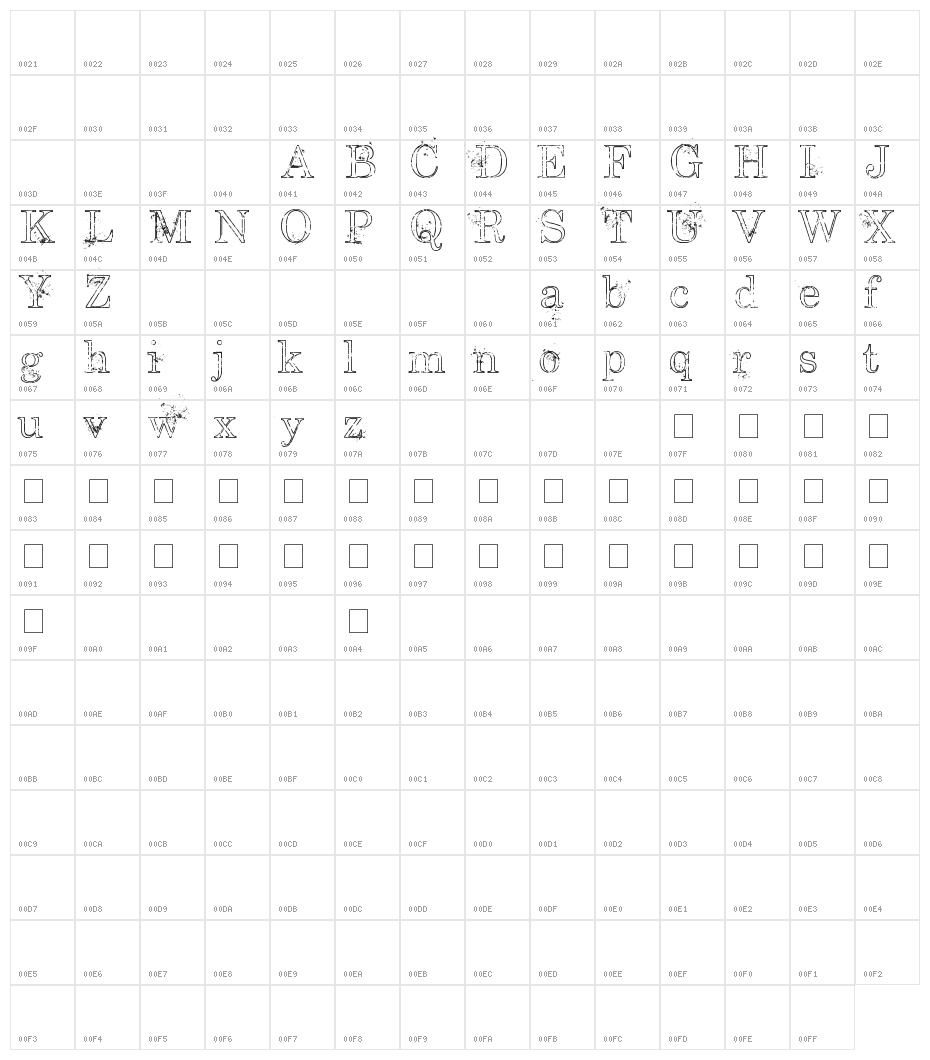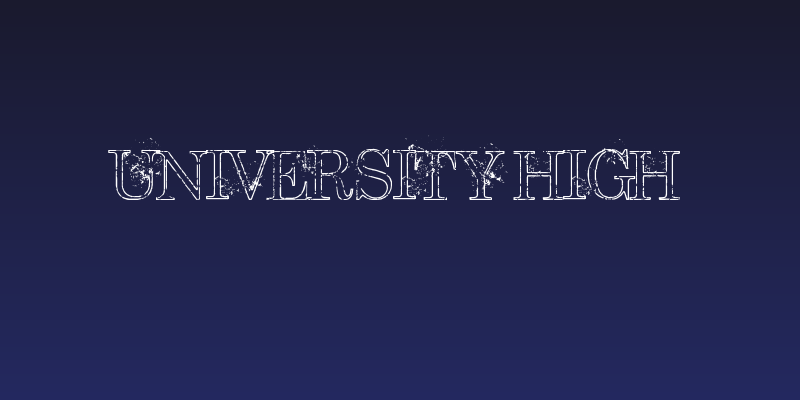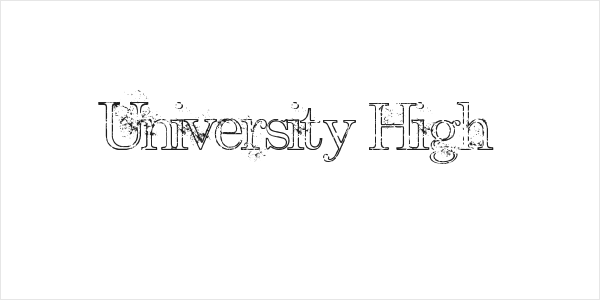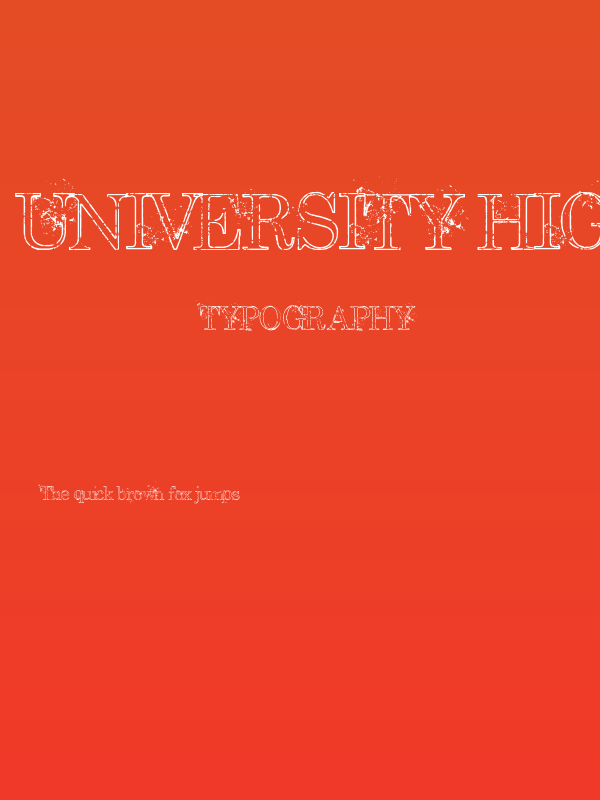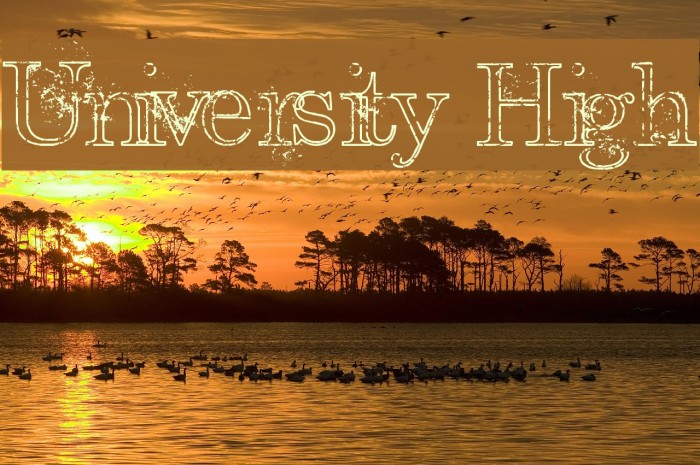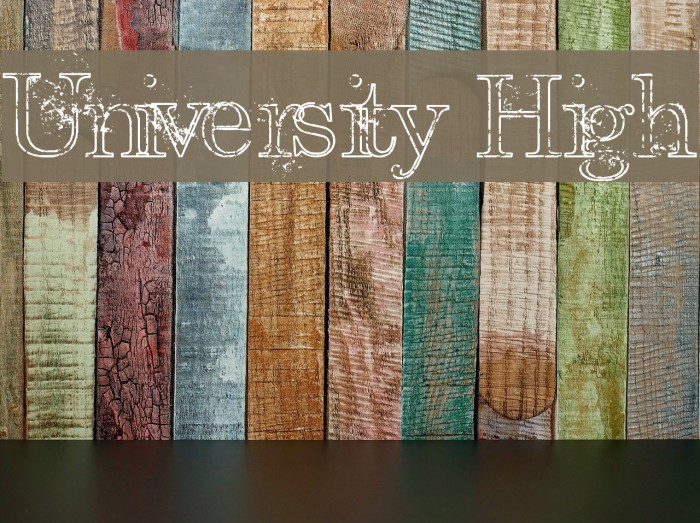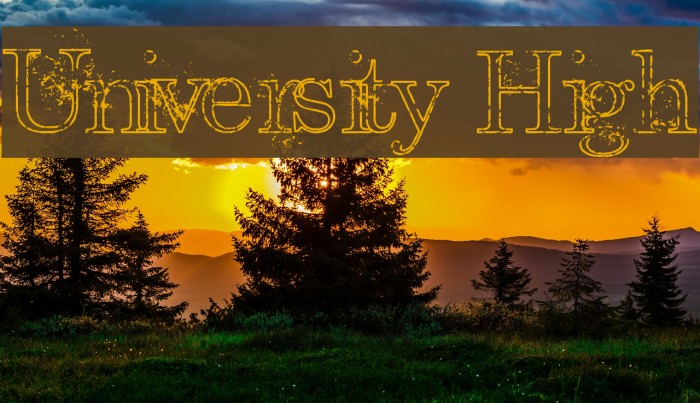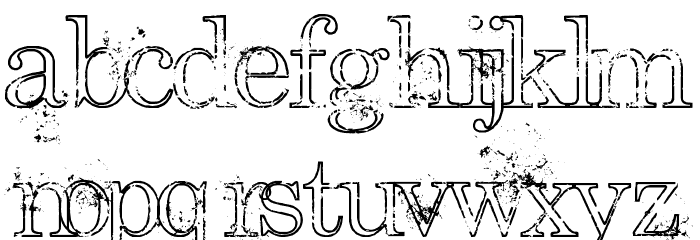
University High Font
University High Description
This font features a distressed, vintage aesthetic with a serif style that gives it a classic yet worn appearance. The characters are bold and have a weathered texture, creating a sense of history and character. The uppercase and lowercase letters maintain a consistent style, with serifs that are slightly exaggerated, adding to the decorative nature of the font. The numbers and special characters follow the same distressed pattern, ensuring uniformity across all glyphs. This font is ideal for projects that aim to evoke a sense of nostalgia or a rustic, handcrafted feel.
| Proposed Projects | Perfect for vintage-themed posters, rustic branding, historical event invitations, or any design requiring a classic, aged appearance. |